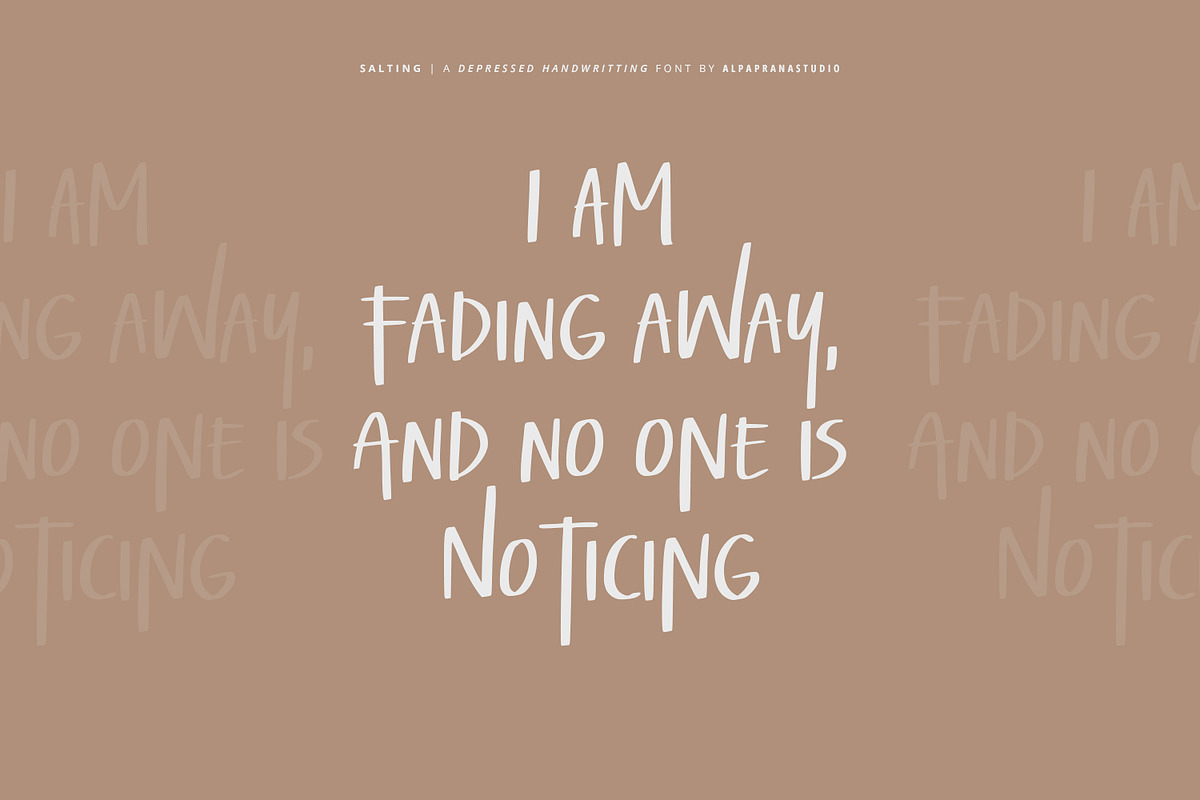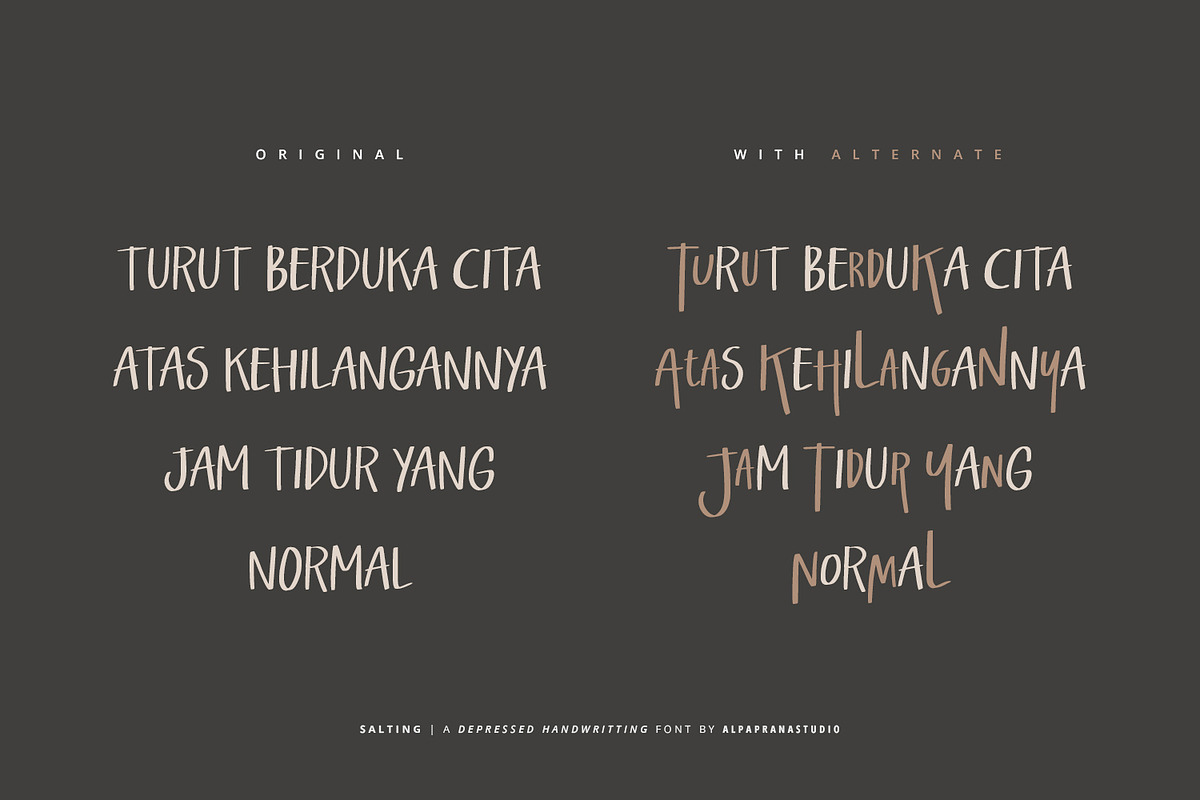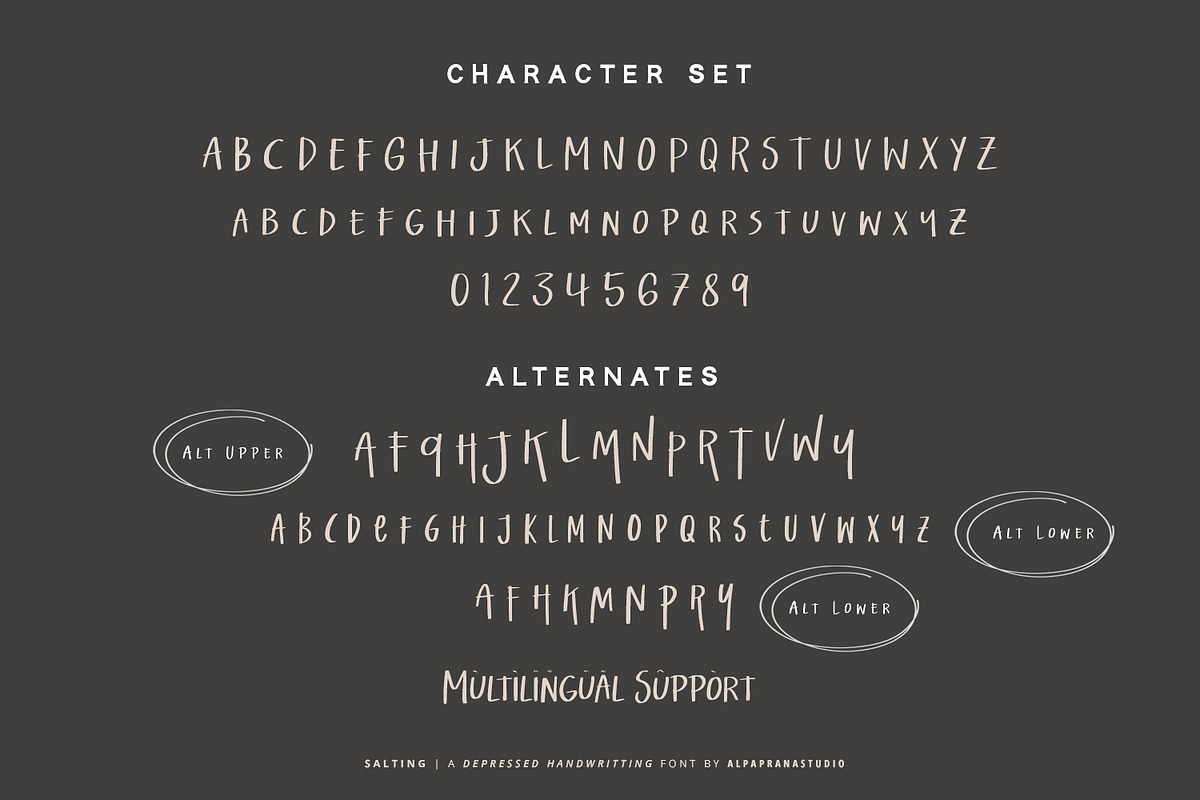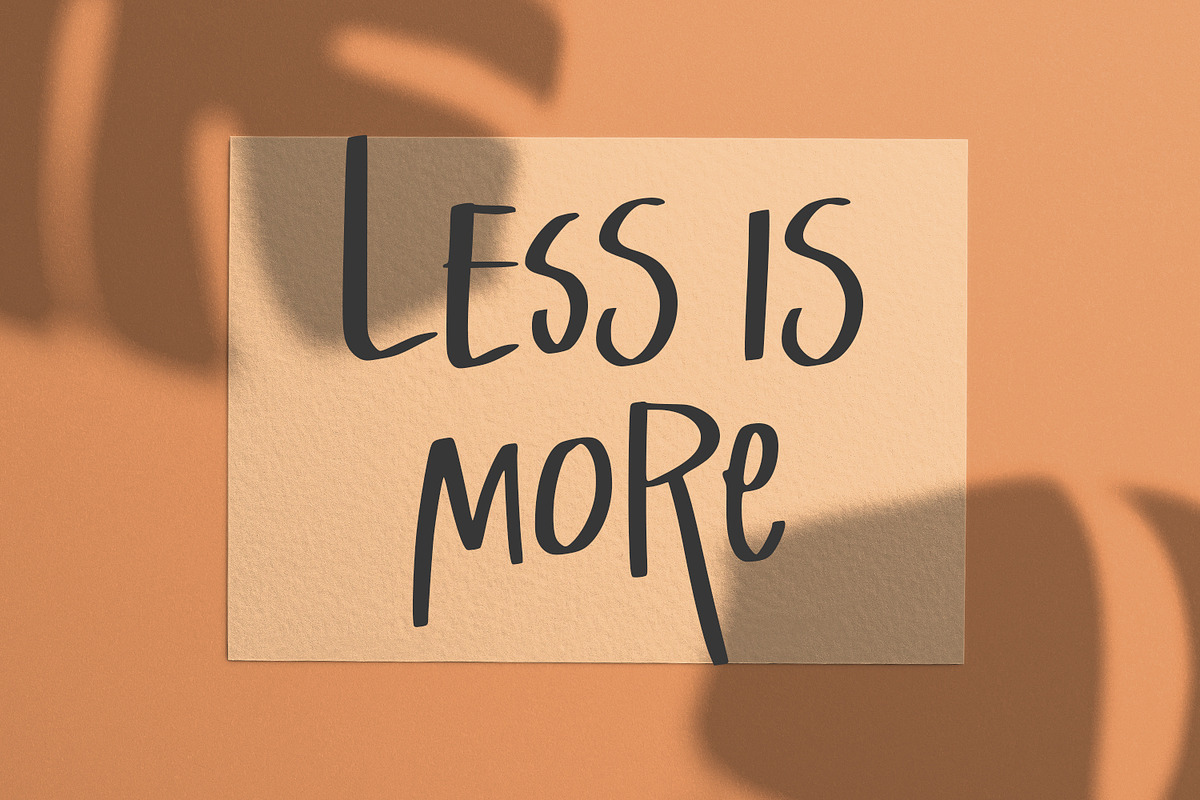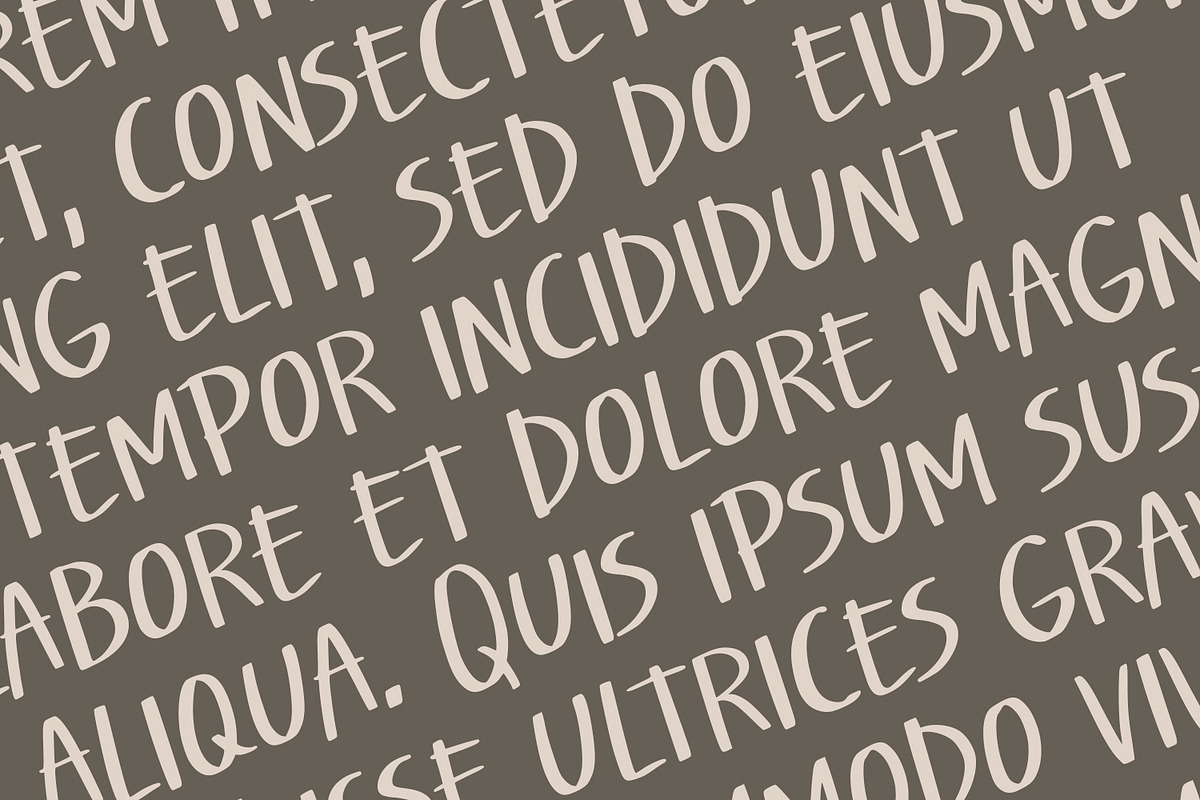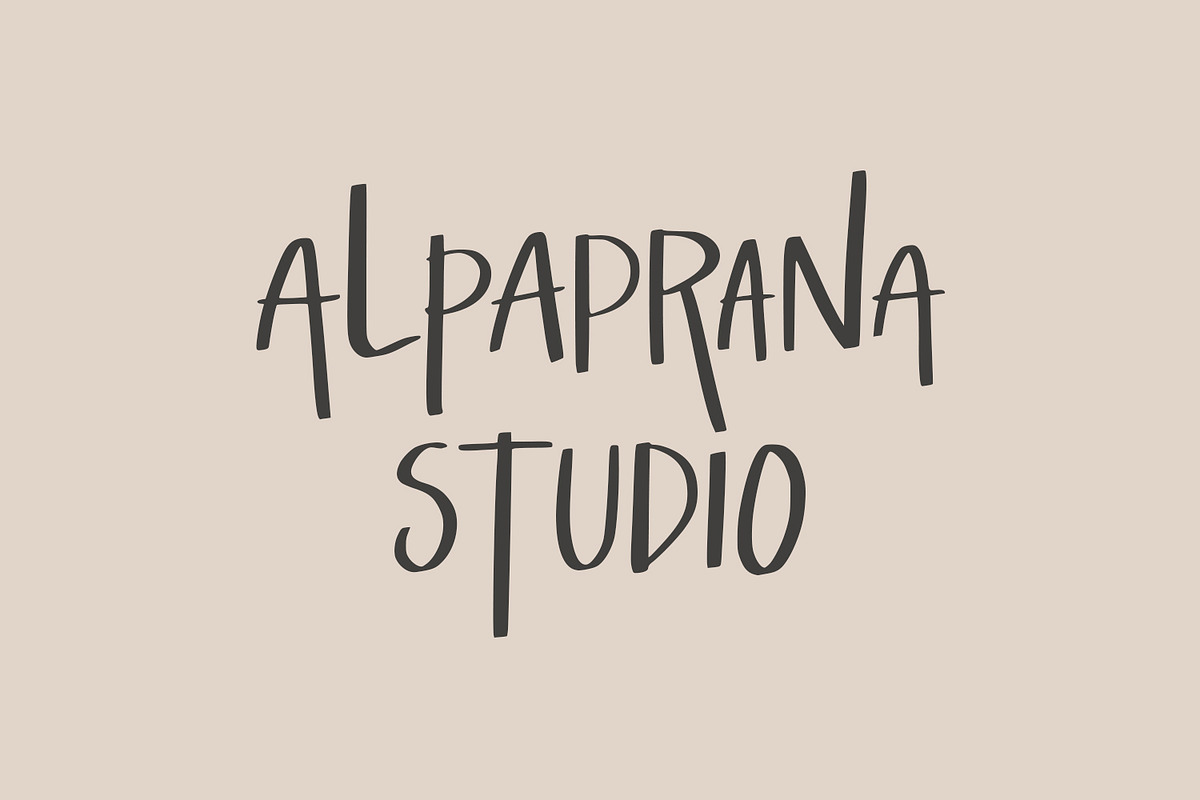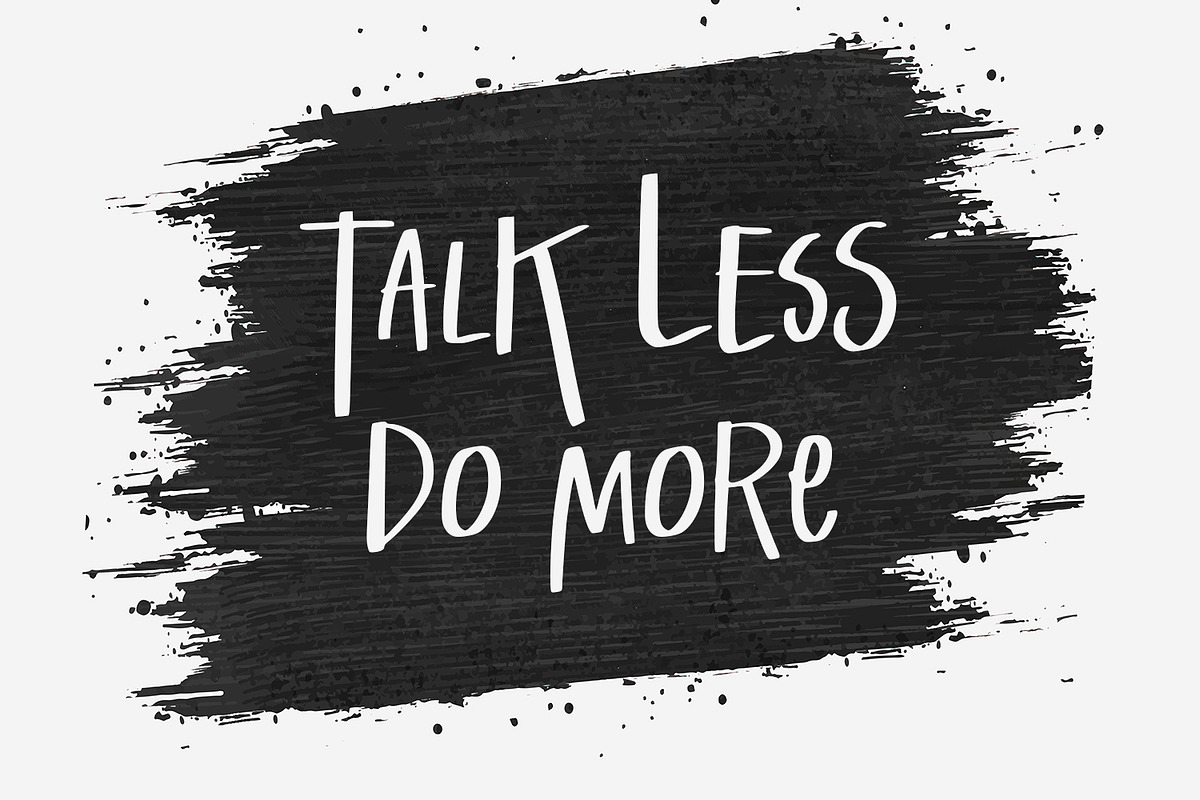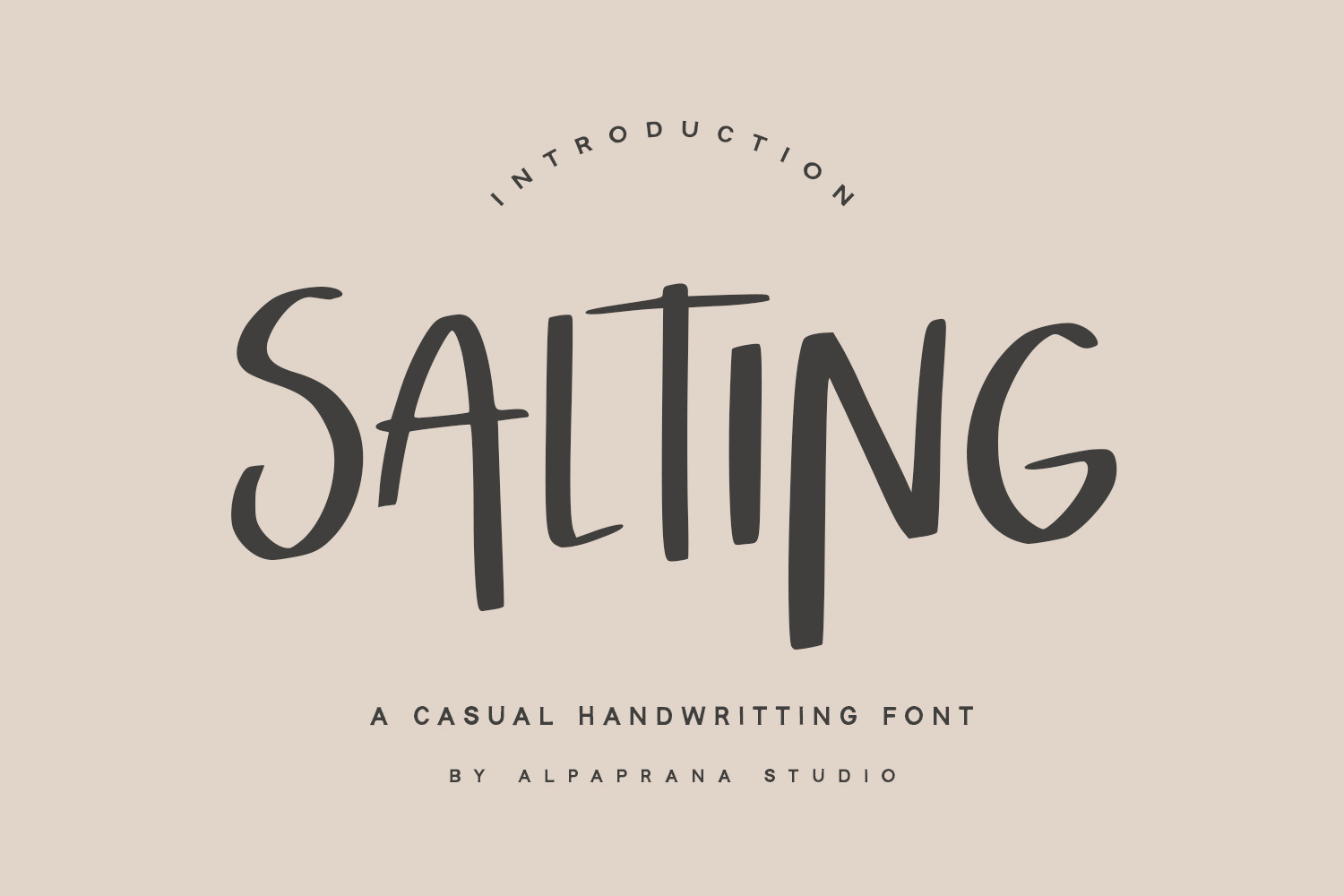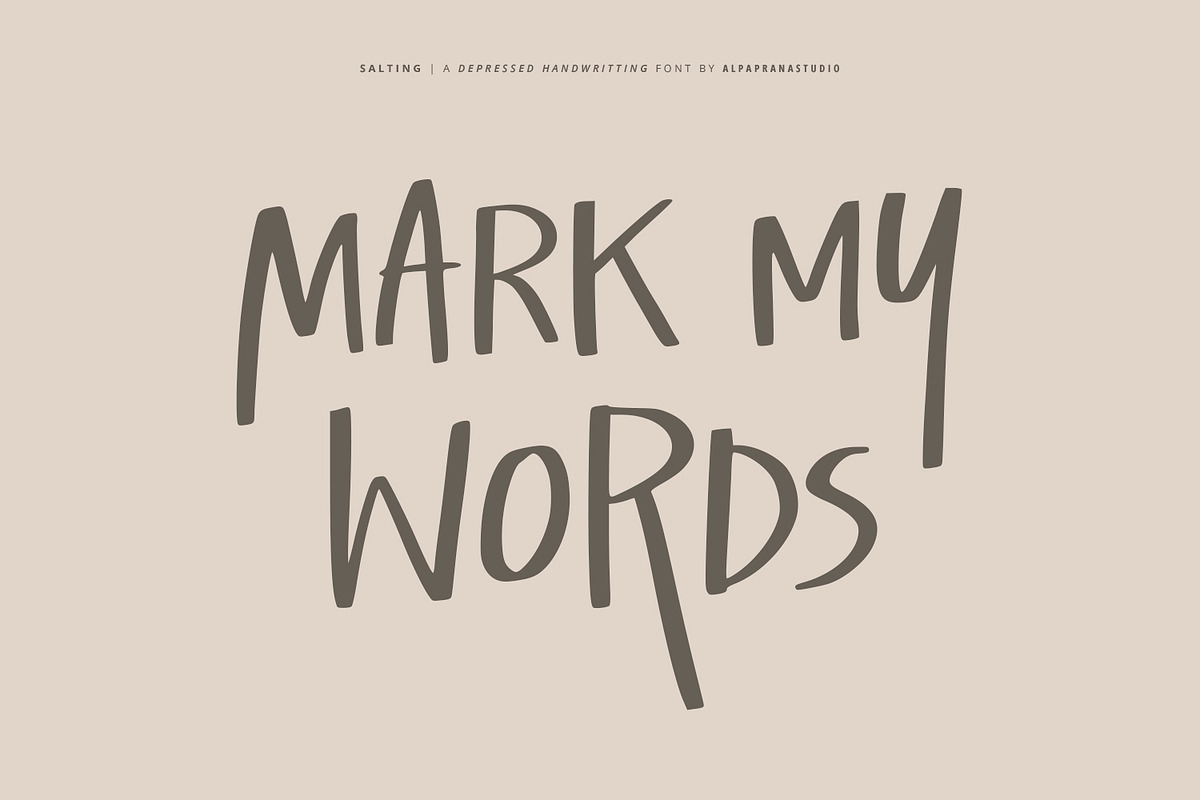
Salting - Handwritten Font
Salting is a handwritten display font with natural and modern feels. It will be perfectly used for Branding, Logo Design, Lettering, Logotype, Clothing, Poster, magazine, packaging, posters, shopping bags, t-shirts, book covers, photography, special events and other design project.